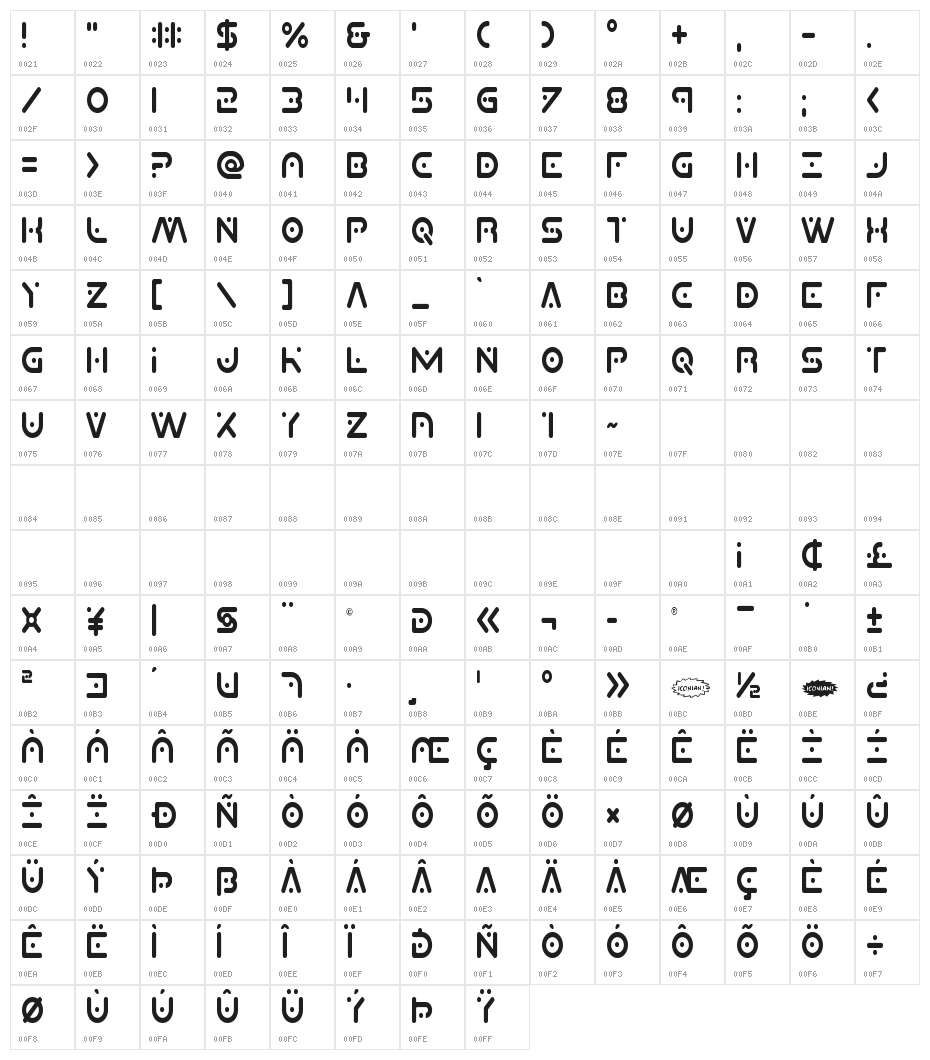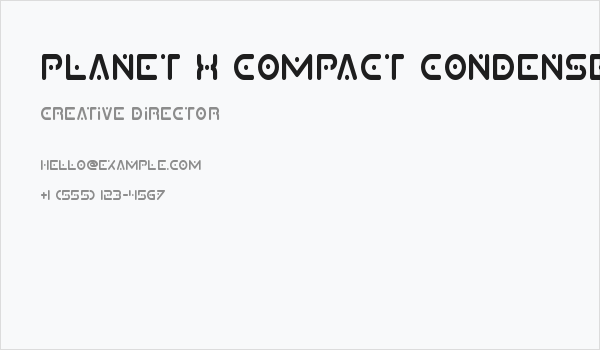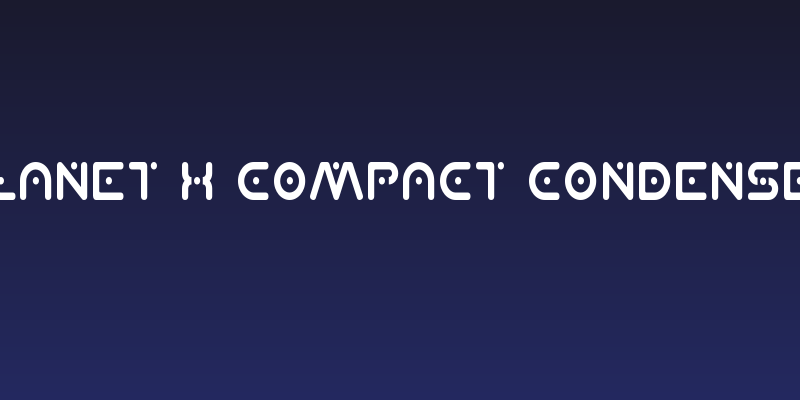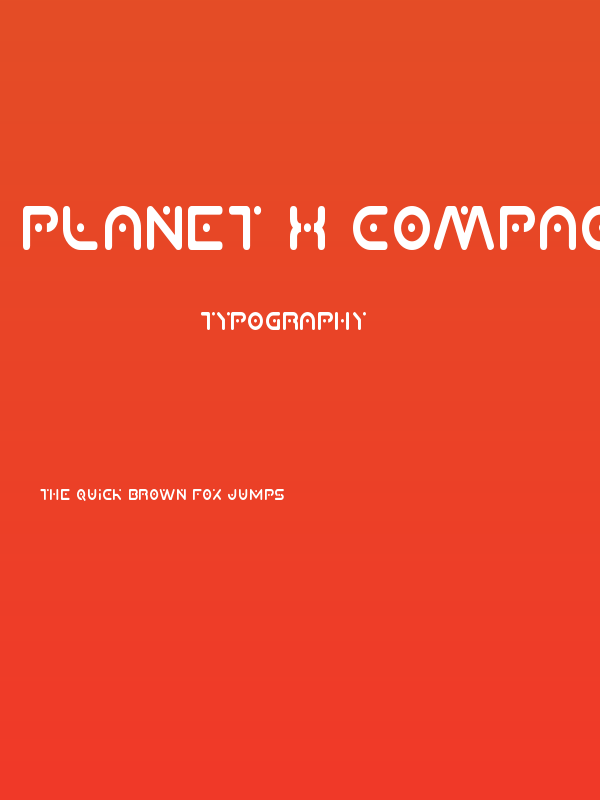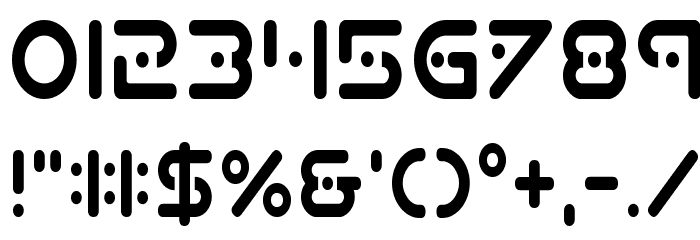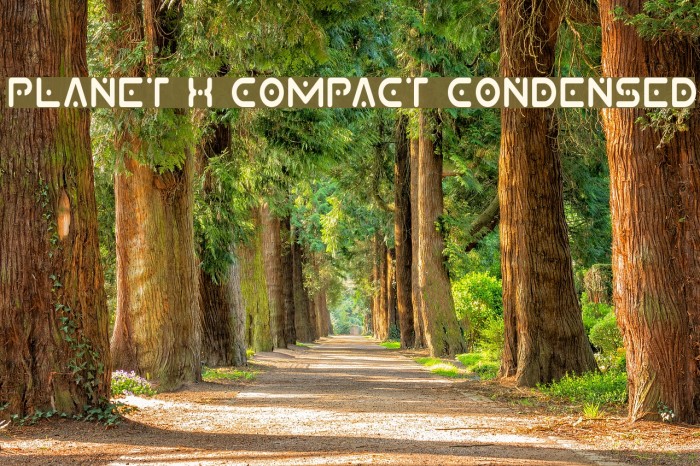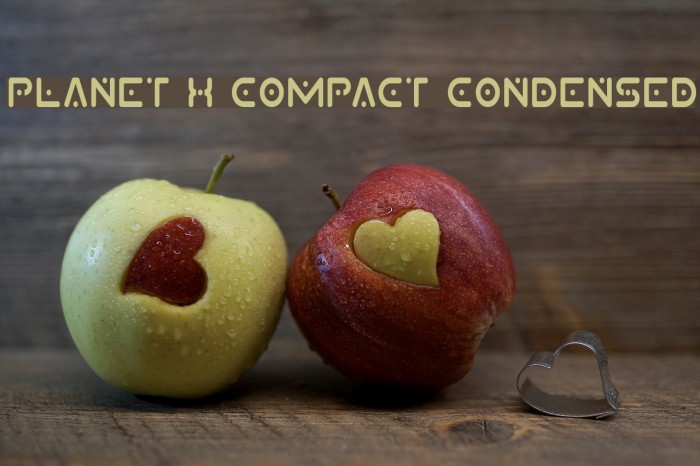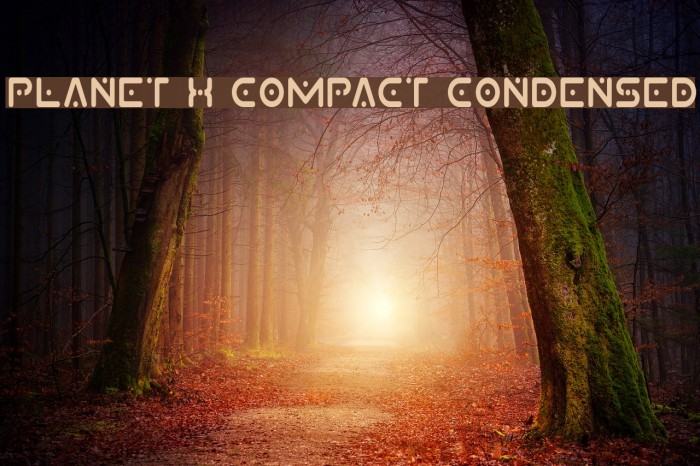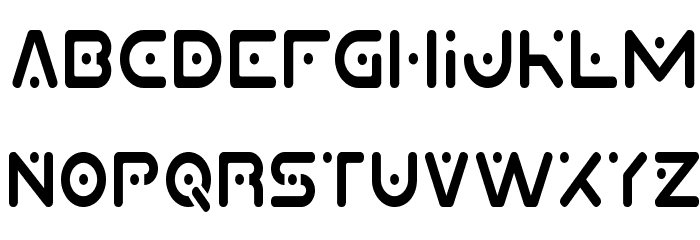
Planet X Compact Condensed Font
Planet X Compact Condensed Description
This font features a futuristic and geometric design with rounded edges and a compact structure. The characters are bold and condensed, creating a strong visual impact. The unique cutouts and circular elements within the letters add a distinctive, modern touch. The uniformity in stroke width across all characters contributes to its cohesive appearance. The numbers and special characters maintain the same stylistic elements, ensuring consistency throughout the typeface. This font's design is both innovative and functional, making it suitable for various creative applications.
| Proposed Projects | Ideal for sci-fi themed projects, technology branding, video game titles, and modern advertising. |